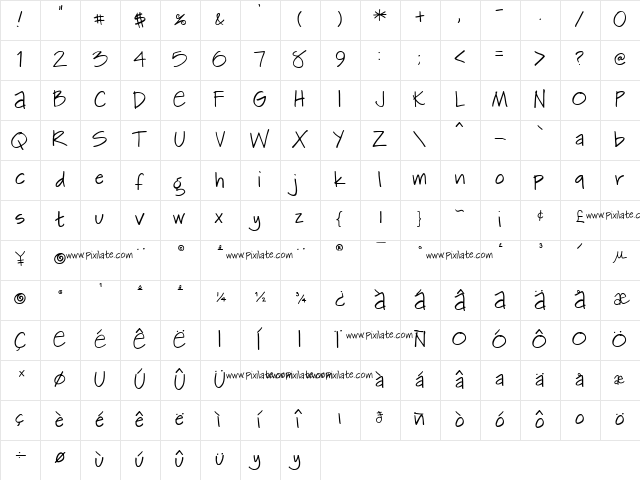
Kemie Regular Font Preview
Kemie Regular
Kemie Regular Font Details
| Foundry | Kemie Guaida / Pixilate.com |
| Designer | Kemie Guaida |
Design Context for Kemie Typeface
Kemie is a composed and adaptable typeface that performs quietly and consistently across a wide range of design contexts.